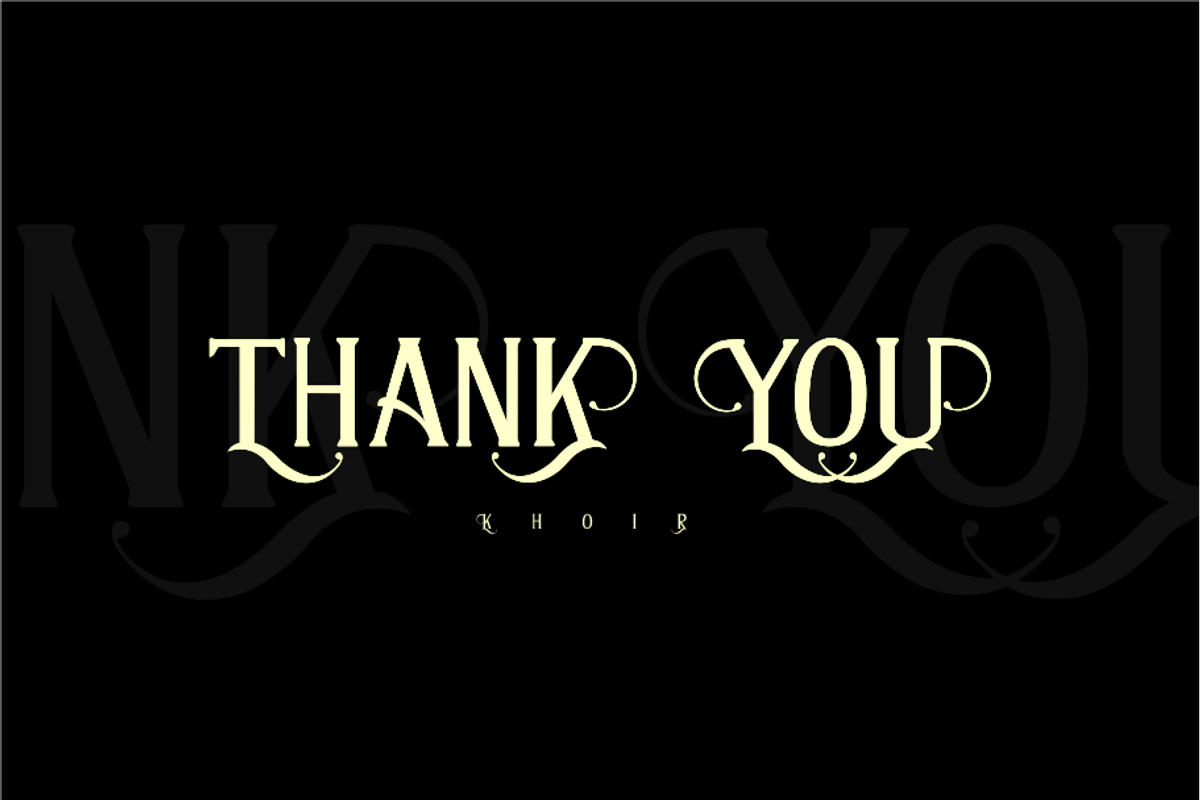
ANTENNA
Hello All introduces a modern serif font ANTENNA Antenna is a classic serif font made in modern and does not leave a classic impression with a touch of minimalist engraving
font antenna is equipped with an attractive alternative feature that makes it suitable for poster display, book cover, packaging, film cover, greeting card, logo, and more
Foreign languages support : ÀÁÂÃÄÅÆÇÈÉÊËÌÍÎÏÐÑÒÓÔÕÖØÙÚÛÜÝß